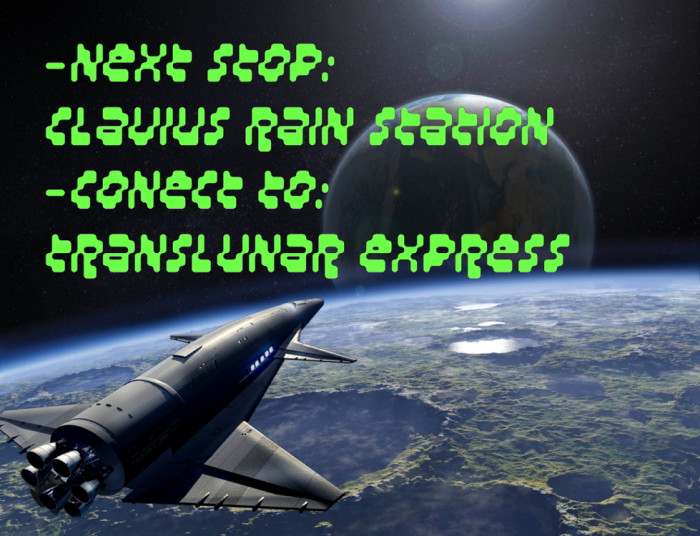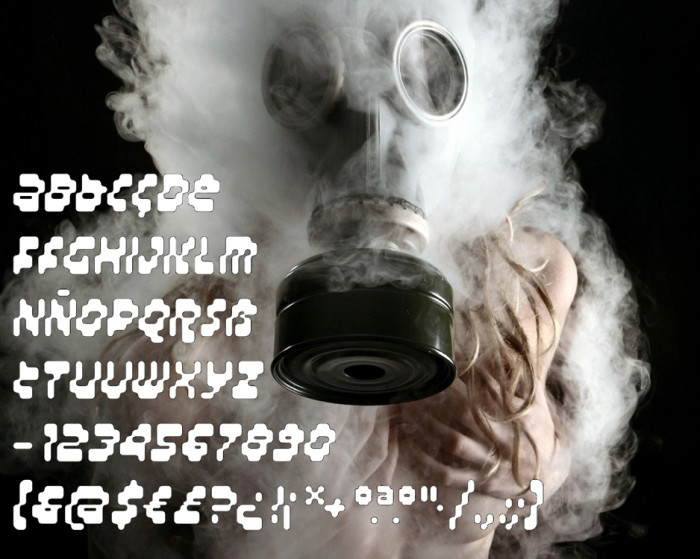
Reload your brain, ask about everything. Our Future begins in... 3... 2... 1... NOW! NB: Better writing with uppercase. Three alternatives (b, f, T) to improve readability in certain cases are in the lowercase.
Trust you to come up with a new way to use the old bricks. Nice.
I like the way this font plays with my eyes, making them slowly run down, 10|10. Will you post the font from the first image?
Very cool! I think it would make sense to switch the uppercase and lowercase T.
@Dmitriy Sychiov: Thanks for the feedback. The font in the first image is still unfinished. @Yautja: Thank you. About the Ts, I've thought changing them but it has not quite convinced me, and I put the T like an alternative at last.
Verrry nice one! I
Excellent font, looks like it's going through a time warp.
@four: Thanks a lot, compañero. That's was one of the initials ideas, you got it.
This is a fine example of "glitch typography" - as far as I can read it - a trendy style based on mimicking the image artefacts of old CRT monitors. Great application of the standard brick palette, and fitting retro-futuristic demo pics. 10/10
So simple and so effective! Bravo.
@beate: Your words are like a pink distinction  ?  to me, dear maestra! You know, I like to fold the letters.